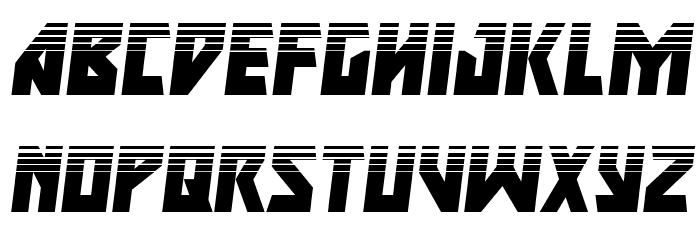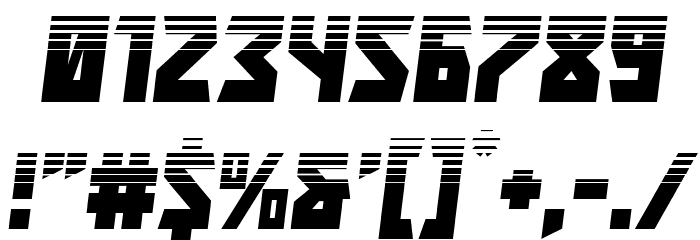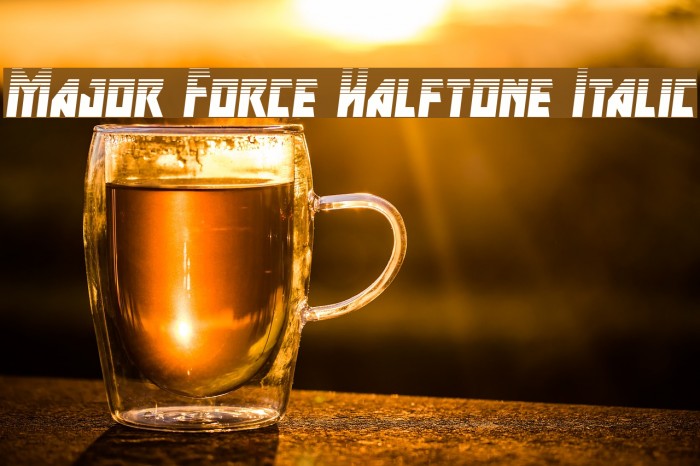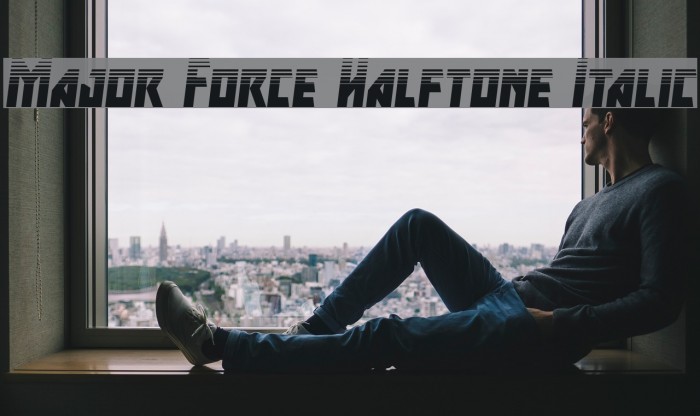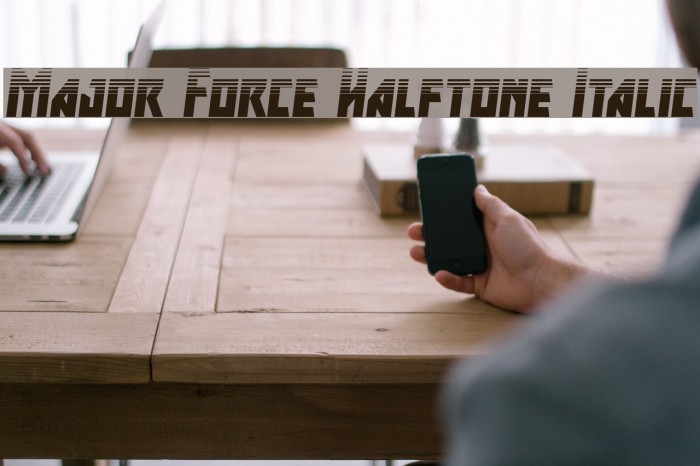
Major Force Halftone Italic Font
This font features a bold, geometric design with a halftone effect that gives it a dynamic and futuristic appearance. The characters are constructed with sharp angles and straight lines, creating a sense of movement and energy. The halftone pattern is prominent, adding texture and depth to each letter. The italic style further enhances the sense of speed and modernity. This font is highly stylized, making it ideal for projects that require a strong visual impact. The uppercase letters are particularly striking, with consistent line thickness and a unique aesthetic that stands out.
A bold, geometric font with a halftone effect and italic style, perfect for dynamic designs.
- Proposed Projects: Ideal for sports branding, futuristic posters, video game titles, and dynamic advertising campaigns.
- Overall Style: Futuristic